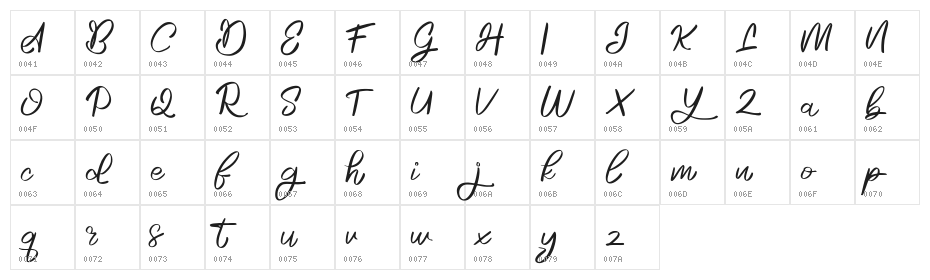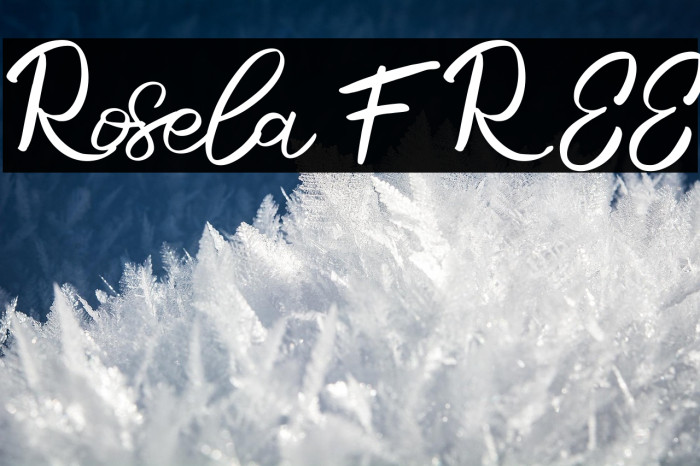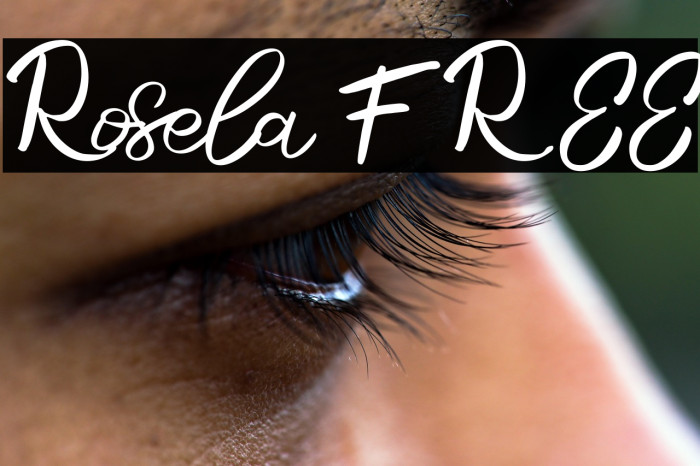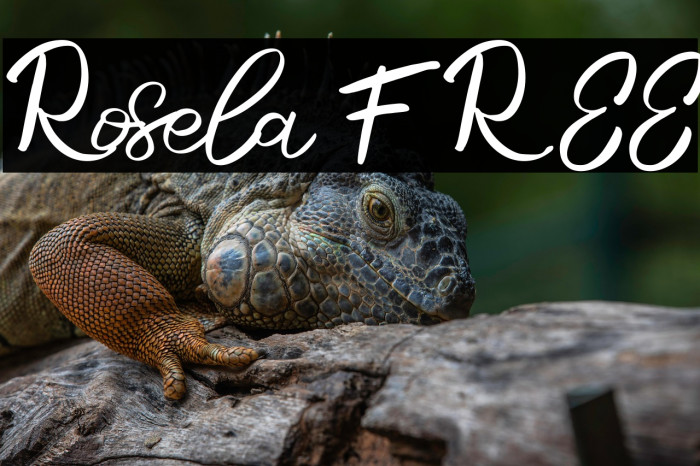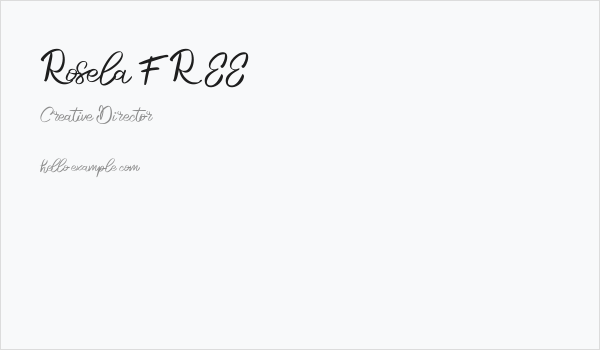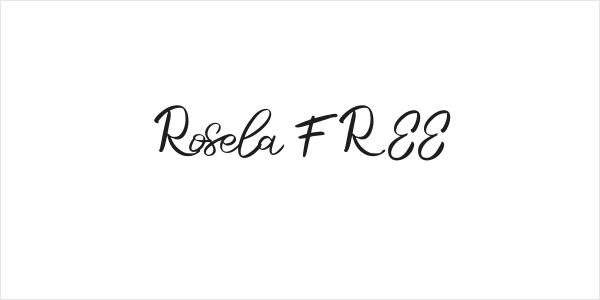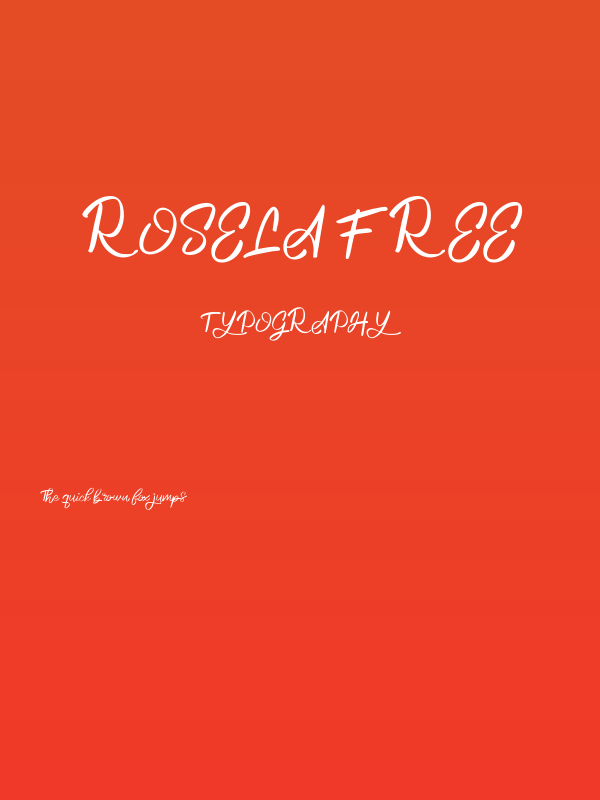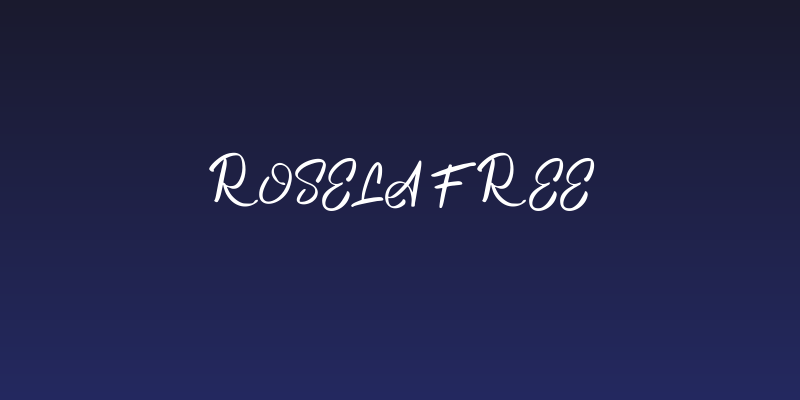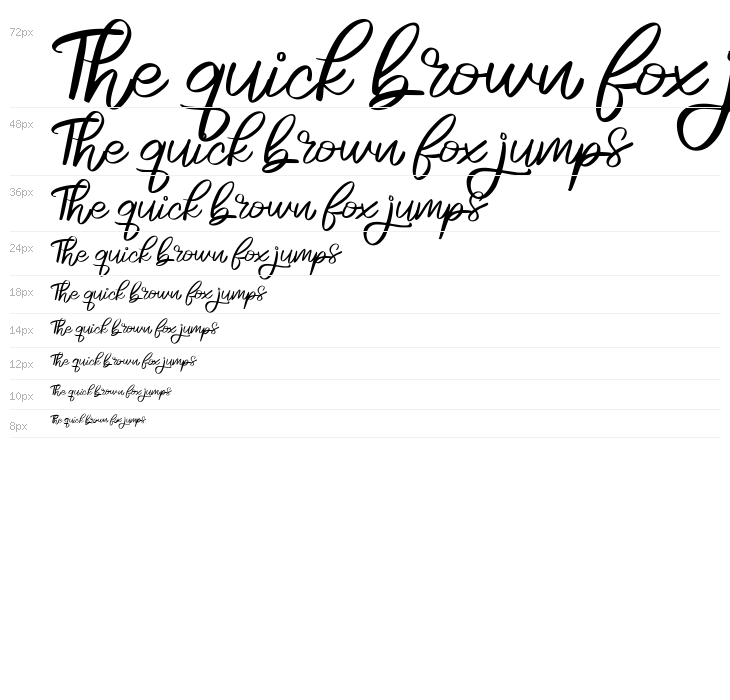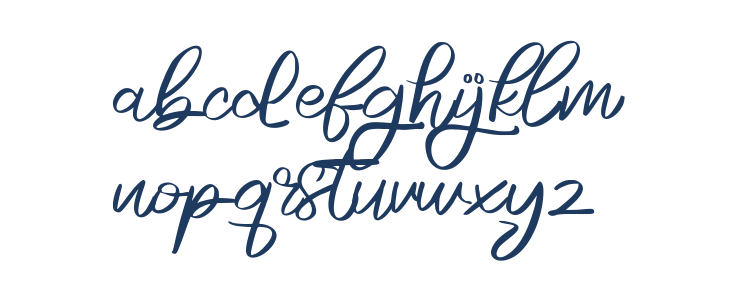
Rosela FREE Font
Rosela FREE Description
This font features a flowing, cursive style with elegant loops and swashes, giving it a handwritten appearance. The uppercase letters are bold and slightly slanted, while the lowercase letters maintain a consistent flow, enhancing the script's fluidity. The characters are well-spaced, allowing for readability despite the decorative nature. The font's design is both sophisticated and playful, making it suitable for various creative applications. Its unique style is characterized by smooth curves and a consistent stroke width, which adds to its charm and versatility.